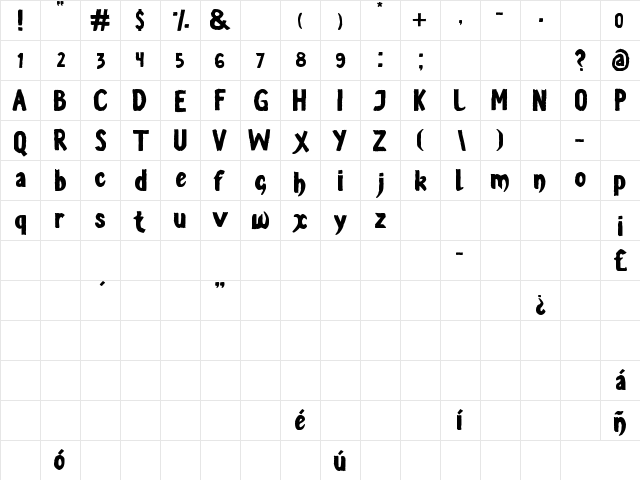
Vestite y Andate! Regular
Design Context for Vestite y Andate! Typeface
Vestite y Andate! is a composed and adaptable typeface that performs quietly and consistently across a wide range of design contexts.